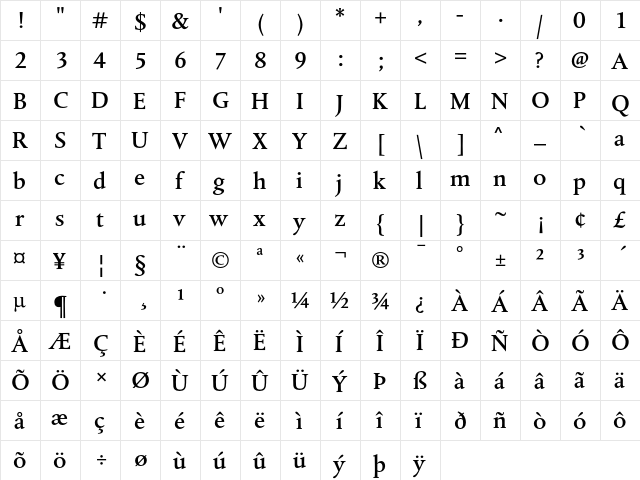
DTL Albertina T Medium
Design Context for DTL Albertina Typeface
DTL Albertina offers clean, dependable letterforms without strong stylistic allegiance, making it a practical choice for designers who need flexibility.
Pro Tip: Use DTL Albertina in both headline and body roles to test its range before committing to a single application.